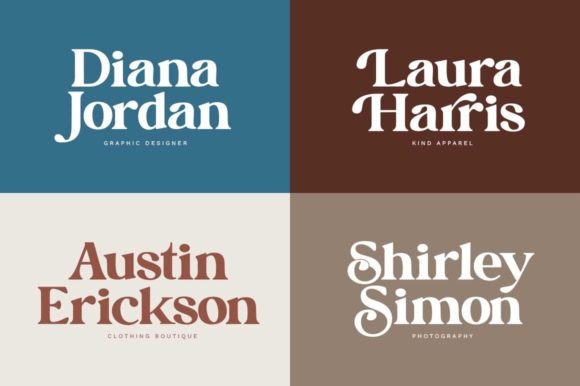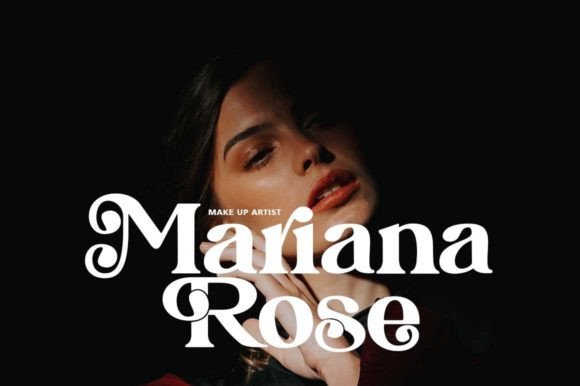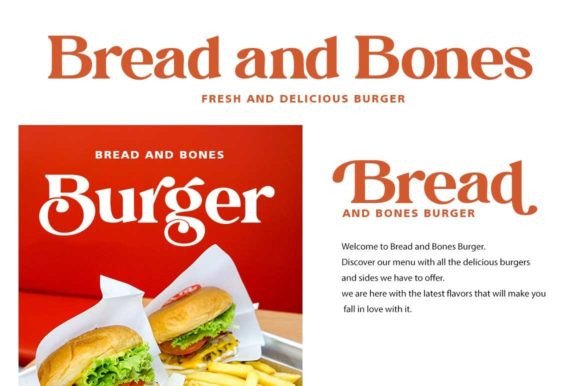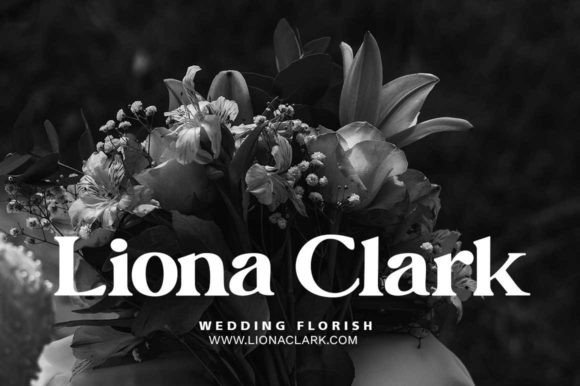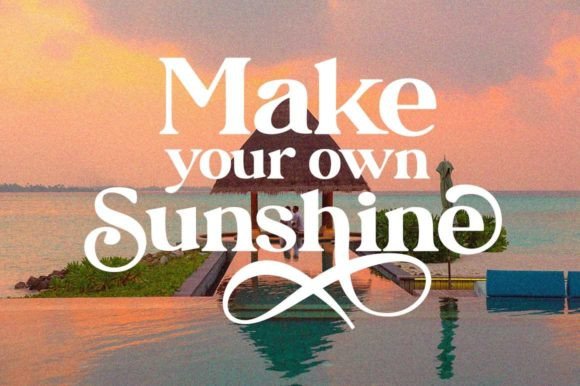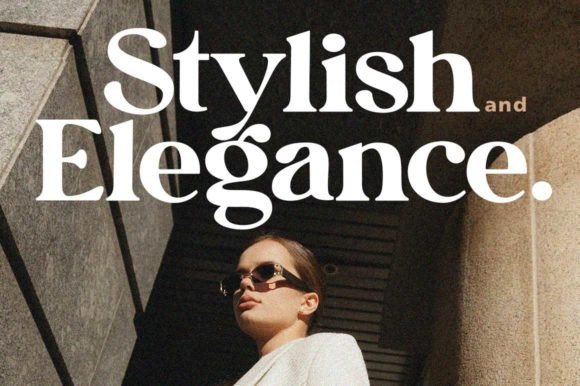
Introduction to American Vintage Font
American Vintage is a stylish serif font that pays homage to the classic typography of the past.
With its timeless elegance and refined curves, this font captures the essence of vintage Americana Ideal for crafting logos, headlines, and editorial designs, American Vintage brings a touch of nostalgia and sophistication to any project.
Key Features of American Vintage Font
Why Choose American Vintage Font?
American Vintage Font offers exceptional quality and versatility, making it a valuable addition to your design toolkit. Whether you’re creating for personal projects or commercial use, American Vintage Font delivers professional results.